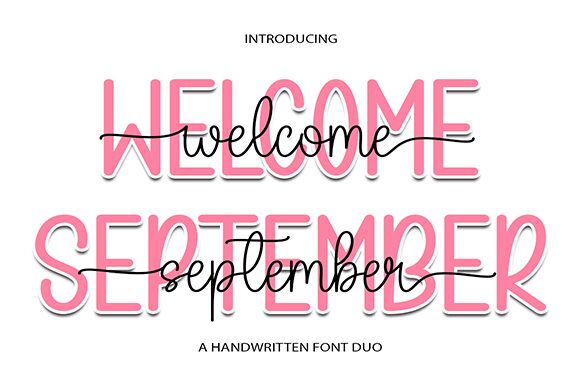
Welcome September
Welcome September font by Wahyu Studio is a light handwritten font combining elegant flow with casual elegance and a signature appearance. Welcome September has carefully designed characters that blend seamlessly into one another making each word look authentic and unique. It is suited for projects where a personal touch is needed such as ones related to events, crafts, social media etc.